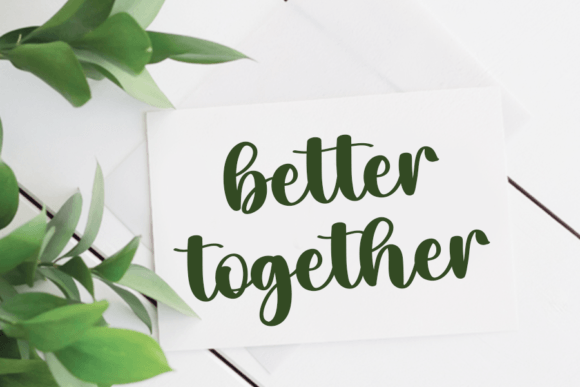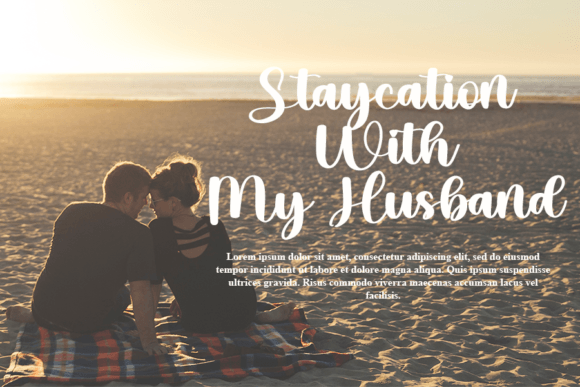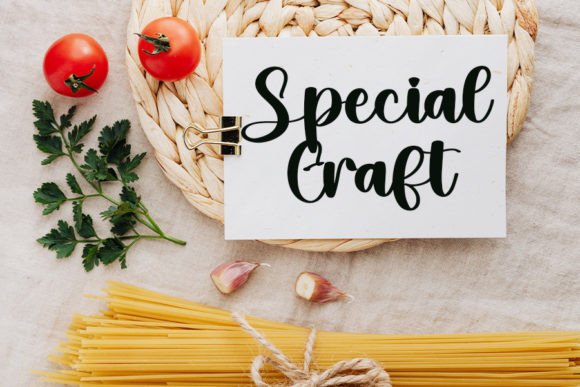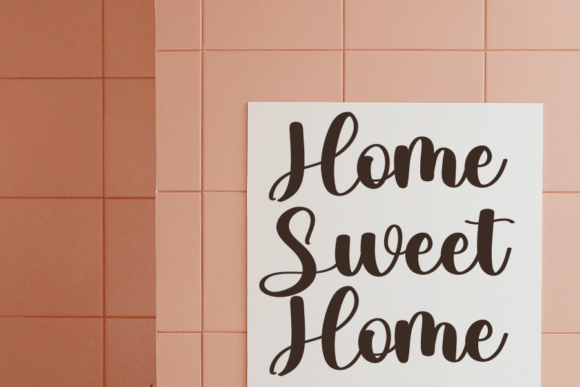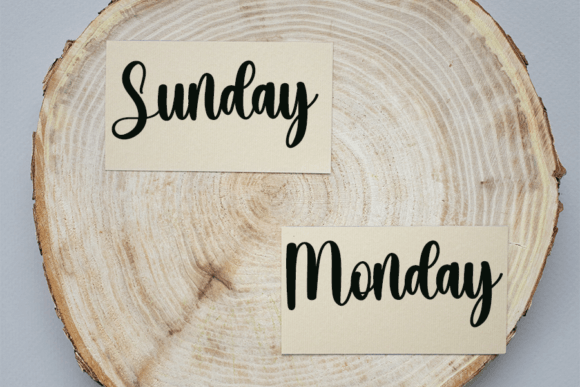
About Dateline Font
**Dateline: A Fusion of Timeless Calligraphy and Contemporary Chic**
Introducing Dateline, a fashionable handwritten font that seamlessly marries the grace of classic calligraphy with a dash of contemporary flair. With its impeccable form and sophisticated aesthetics, Dateline is poised to elevate the elegance and class of any design project it graces.
At its heart, Dateline pays homage to the enduring art of classic calligraphy. Its flowing lines and intricate details capture the essence of this timeless craft. Each character is meticulously crafted to evoke the authenticity and personal touch that only handcrafted writing can provide.
But Dateline is not just a nostalgic ode to the past. It effortlessly weaves in modern elements, ensuring its relevance in today’s design landscape. This font’s impeccable form and balanced design make it highly legible, ensuring that your message remains clear and accessible to your audience across various mediums, whether digital or print.
The versatility of Dateline is a true asset. It is equally at home gracing the invitations of a grand wedding, adding a touch of sophistication to a restaurant’s menu, or crafting compelling promotional materials for fashion or luxury brands. Its adaptability makes it an indispensable tool for both seasoned designers and newcomers looking to inject refinement into their projects.
With Dateline as your typographic choice, you’re not just selecting a font; you’re making a statement. You’re infusing your designs with a timeless sense of beauty and sophistication. Whether your aim is to evoke a classic, vintage ambiance or to impart a trendy and contemporary vibe, Dateline seamlessly aligns with your creative vision.
In summary, Dateline is more than a font; it’s a harmonious fusion of classic calligraphy and contemporary chic. Its impeccable form, timeless allure, and adaptability make it an essential companion for designers seeking to infuse elegance and class into their projects. With Dateline, your designs will captivate and leave a lasting impression, resonating with your audience in a profound and elegant way. Choose Dateline, and let your creativity flourish in the realm of timeless style.